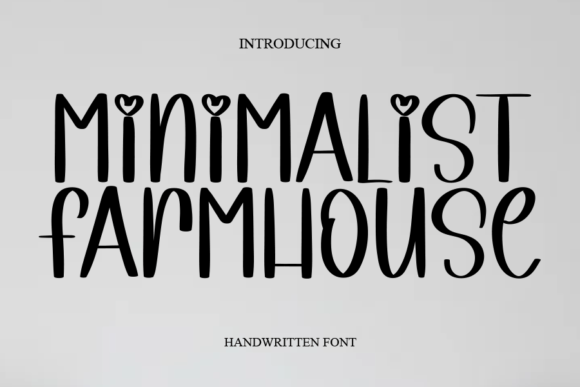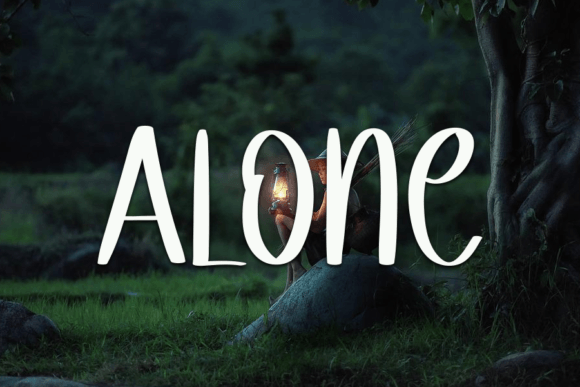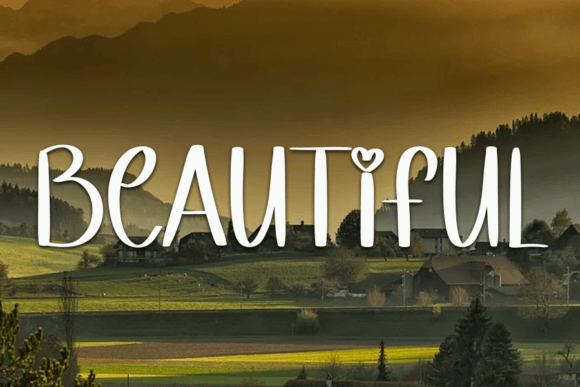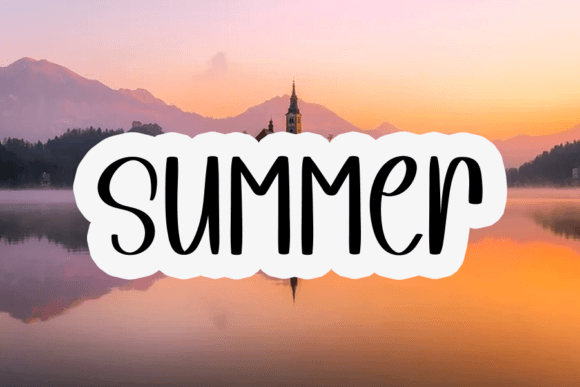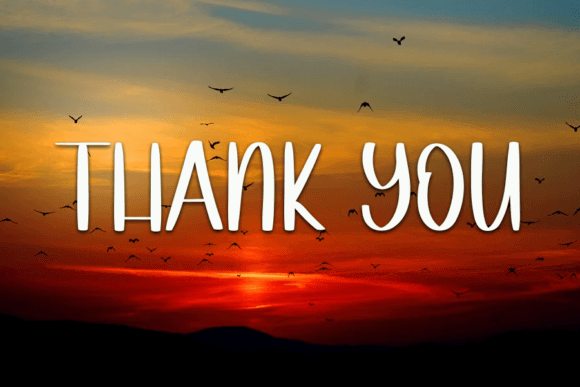
Minimalist Farmhouse Font
About Minimalist Farmhouse Font
Minimalist Farmhouse is a refreshing and natural handwritten font that brings a touch of simplicity and authenticity to your designs. Regardless of the topic or theme, this font emerges as an incredible asset to your fonts’ library, offering the potential to enhance any creation with its clean and understated style.
The fresh and natural aesthetic of Minimalist Farmhouse is evident in its straightforward and unpretentious letterforms, creating a visual language that resonates with simplicity and authenticity. This makes it a versatile choice for a variety of design contexts, from branding to editorial design and beyond.
In branding, Minimalist Farmhouse contributes to a clean and modern brand identity, making it suitable for businesses that value simplicity and natural appeal. Its versatile nature ensures that it can adapt to different industries, maintaining a consistent and approachable visual tone.
For editorial design, Minimalist Farmhouse adds a touch of authenticity, making your layouts and text appear effortlessly stylish. The font’s minimalist style creates a harmonious and easy-to-read visual experience, enhancing the overall design aesthetic.
Whether you’re working on packaging, social media graphics, or other creative projects, Minimalist Farmhouse’s potential to elevate any creation lies in its ability to bring a sense of freshness and simplicity. The font’s clean lines and natural appeal make it a reliable choice for those seeking a design that feels both contemporary and timeless.
In summary, Minimalist Farmhouse is more than just a font; it’s a design asset that brings a fresh and natural vibe to your creative projects. Whether you’re working on branding, editorial design, or other endeavors, Minimalist Farmhouse has the potential to elevate your designs by infusing them with a touch of simplicity and authenticity.